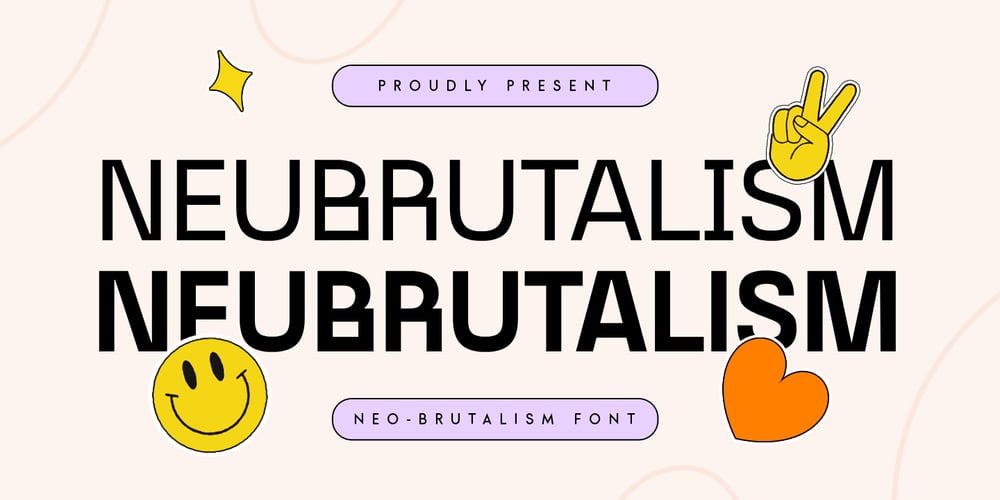
Neubrutalism Font Family was designed by Zamroni Hamzah and published by Sensatype Studio. Neubrutalism contains 2 styles and family package options. NeuBrutalism, NeuBrutalism Font is a A Neo Brutalism Font is a modern and stylish corporate font with a minimalist, unique style and iconic sans serif, font that you can combine to get any variations and unique shapes easily just in seconds with choose alternates of them. It is a sans serif font with minimalist style that perfect for branding projects, logo, poster designs, social media posts, advertisements, product packaging, product designs, label, photography, watermark, invitation, stationery, and any projects, it makes with a high level of legibility.What’s Included: 2 Weights NeuBrutalism font Ligature Characters Character set A-Z Numerals & Punctuation Accented Characters (West Europe) Works on PC & Mac Recommended using Adobe Illustrator or Adobe Photoshop. Wish you enjoy our font. 🙂